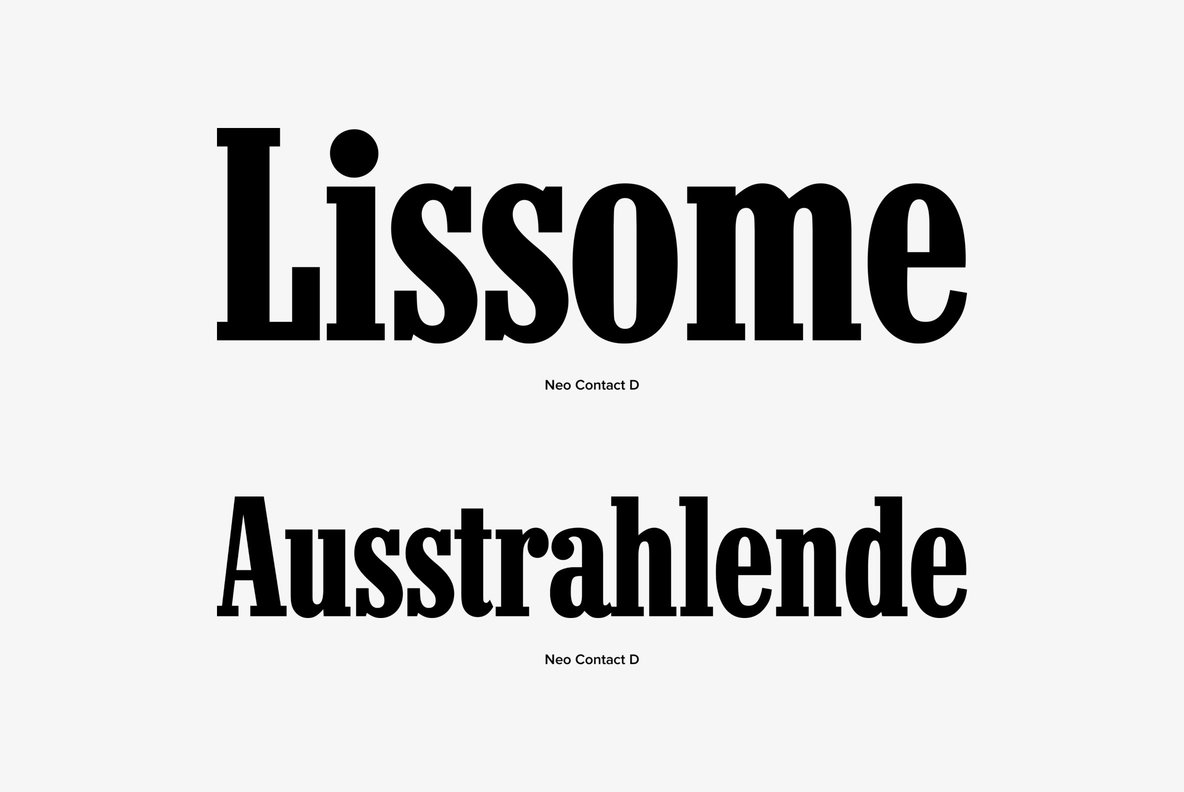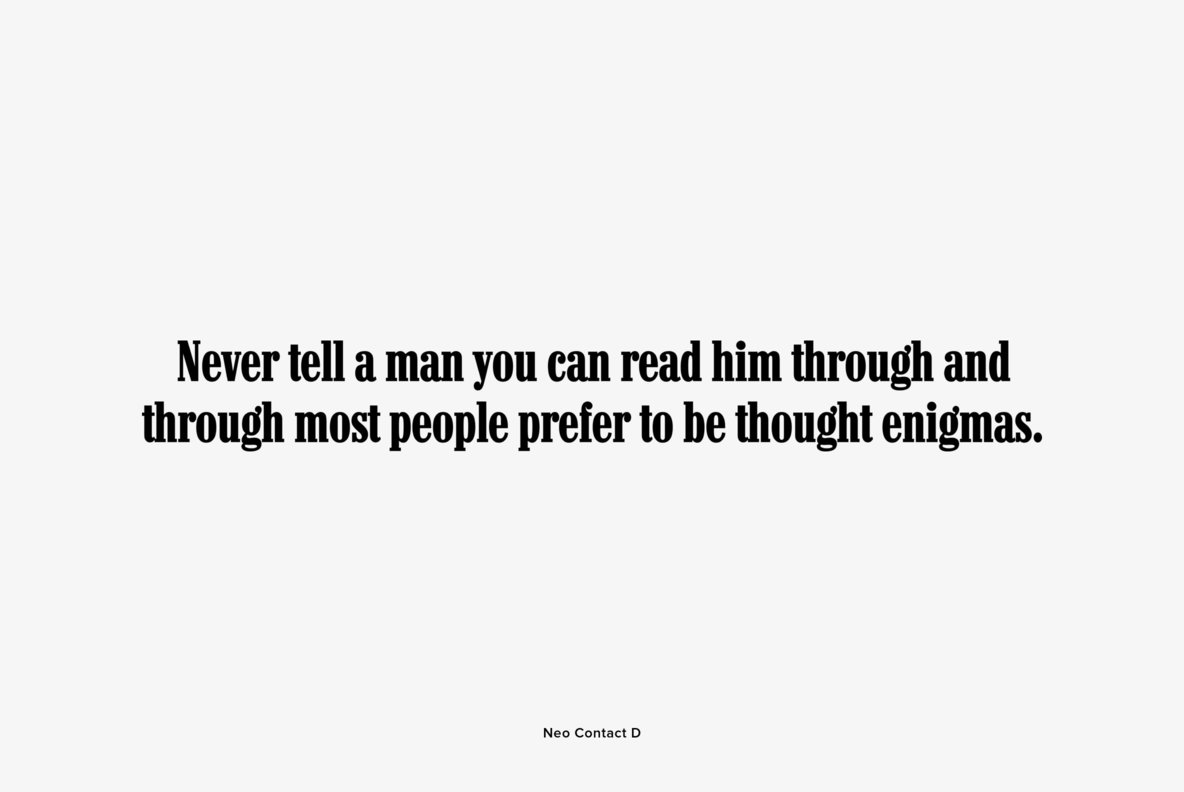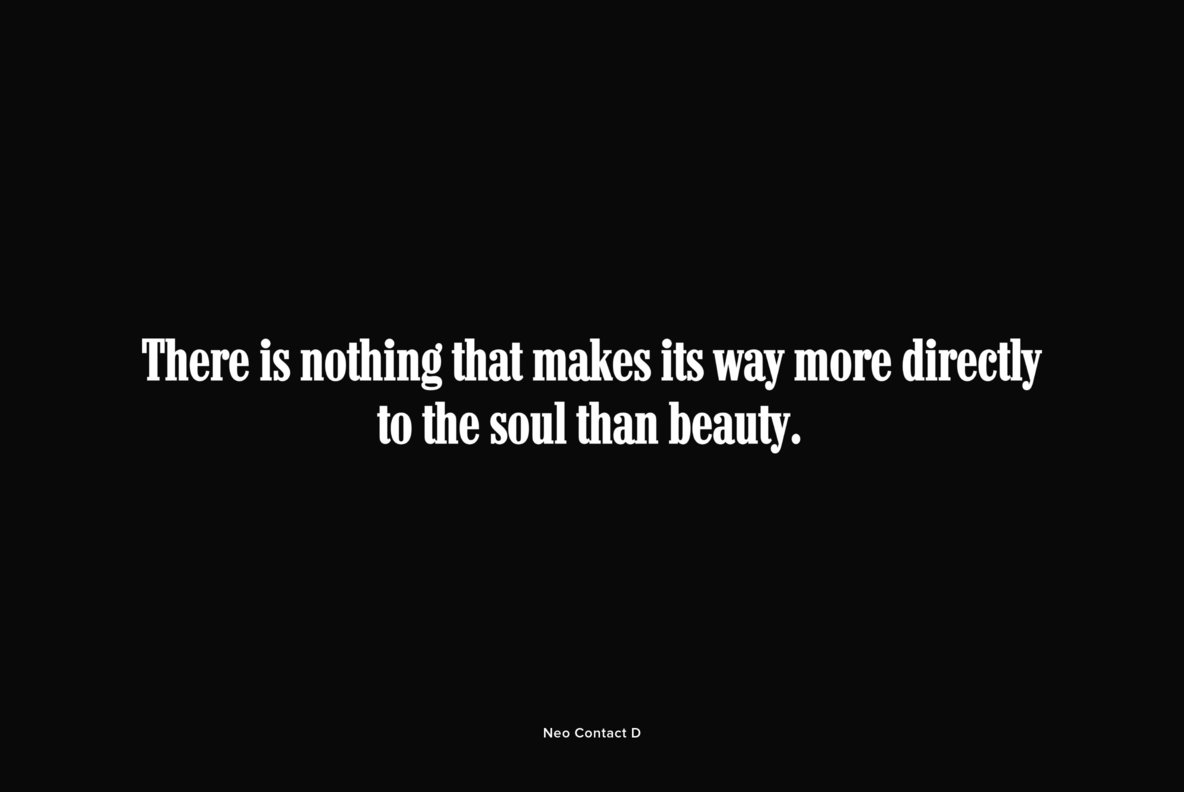
Neo Contact (Marlboro)
Neo Contact is an egyptienne style serif released by URW, most famous for its use on the Marlboro cigarette packaging. Contains language support for West, East, Turkish, Baltic, and Romanian.